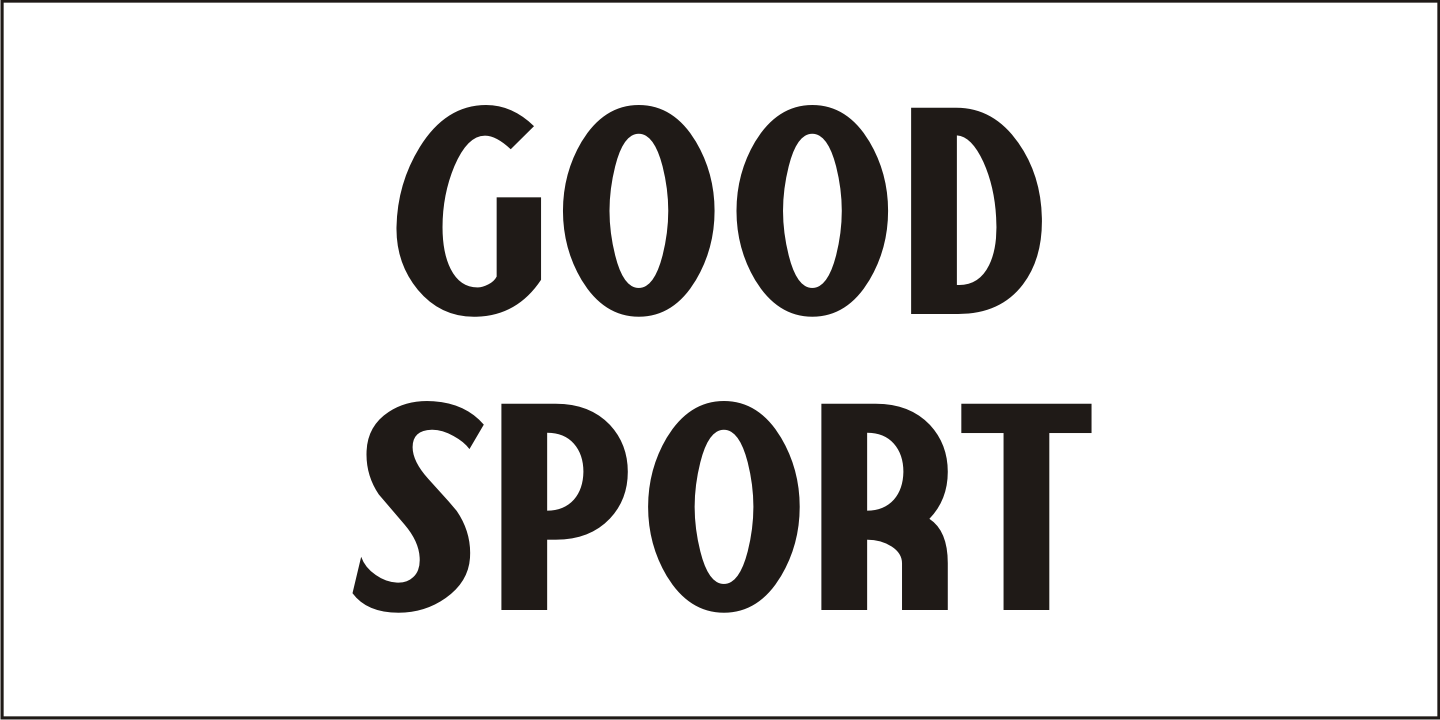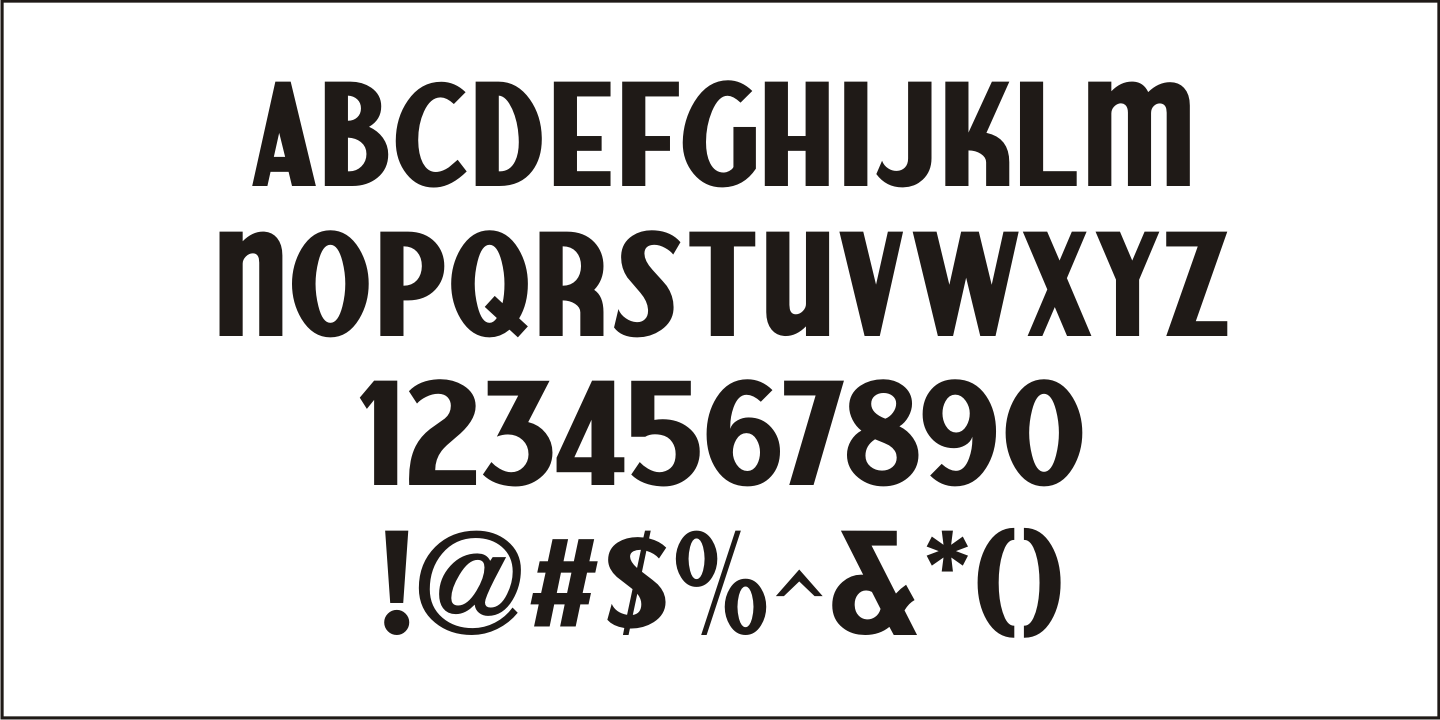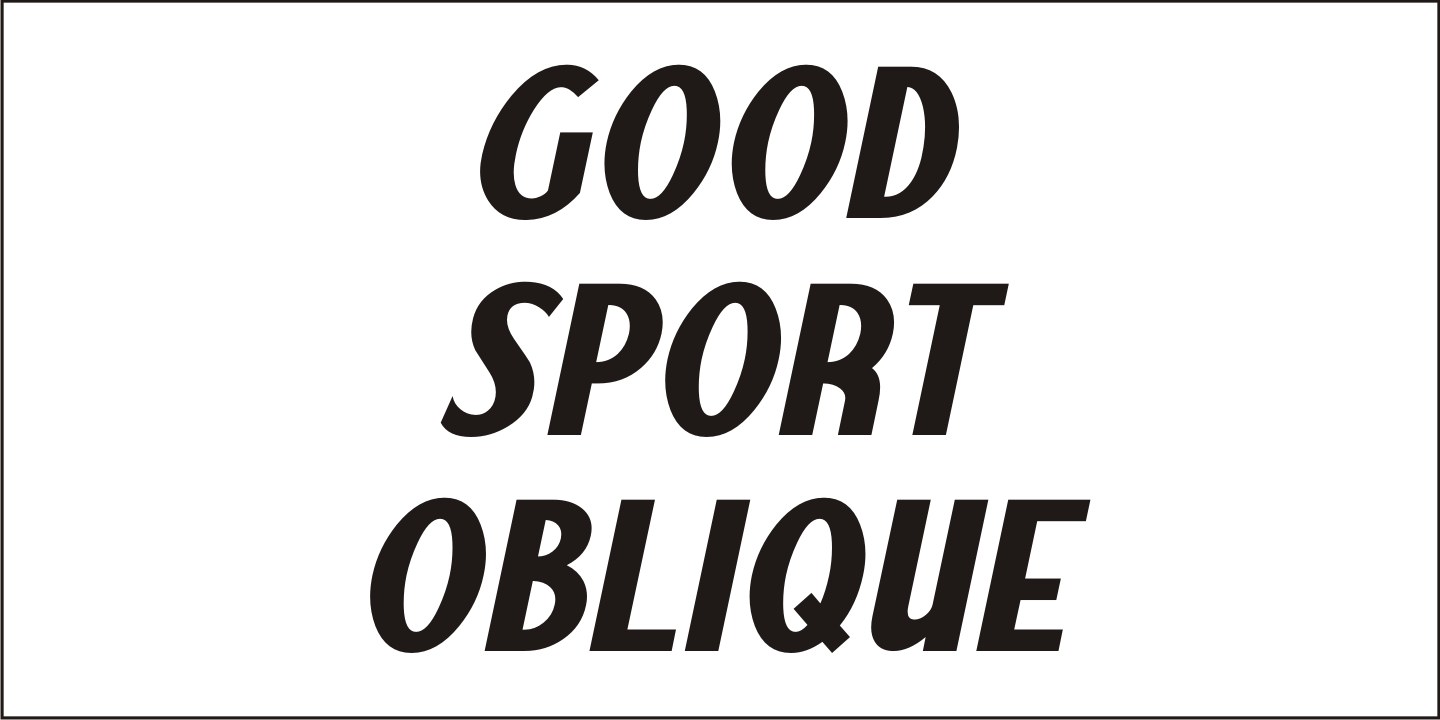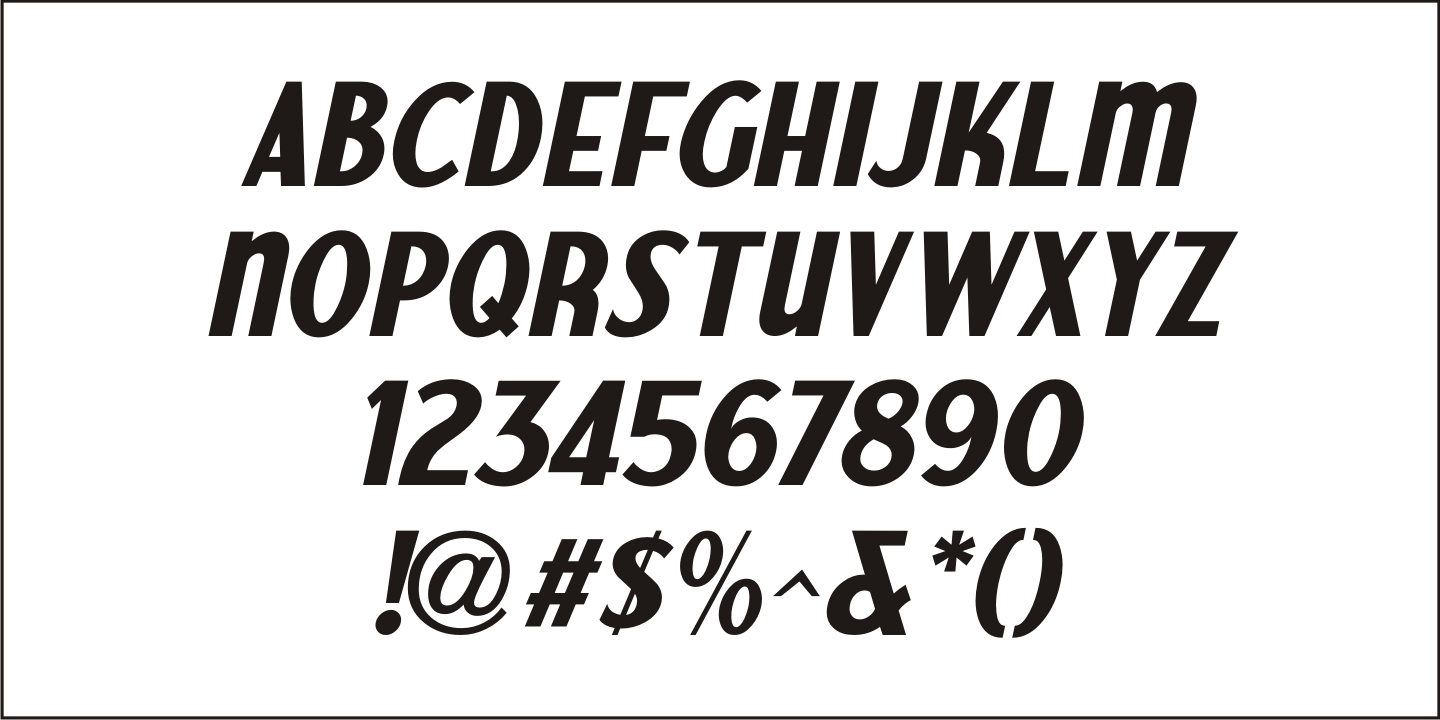
Good Sport
Good Sport JNL has nothing to do with any of the major sports activities such as baseball, football, basketball or soccer.
Instead, the typeface gets its name from the sport of camping, as the lettering was spotted on an image of an old ad for the Colonial Forest-Master boy's pocket knife.
Good Sport JNL is available in both regular and oblique versions.
Good Sport JNL Regular by Jeff Levine Fonts